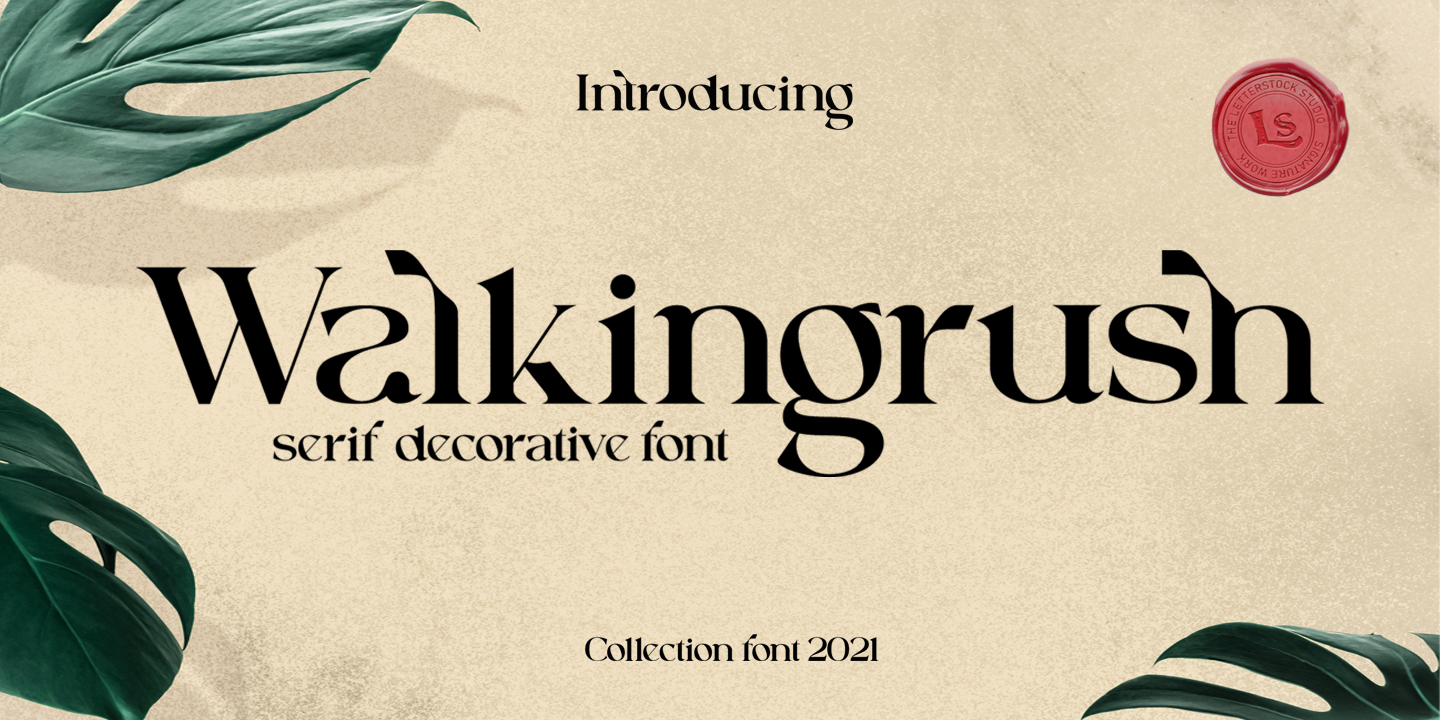
Walkingrush Font is ideal for adventure sports branding, outdoor gear packaging, extreme sports logos, travel blog headers, hiking trail signage, camping equipment labels, fitness brand identity, action movie titles, adventure game interfaces, and dynamic marketing campaigns.
What makes Walkingrush Font exciting is its energetic and bold character that perfectly captures the spirit of movement and adventure. This dynamic typeface features strong, confident strokes that convey speed, power, and determination. The font's unique design elements create a sense of urgency and excitement, making it perfect for brands that want to inspire action and adventure in their audience.
The Walkingrush Font family includes various weights and styles: Regular, Bold, Condensed, Extended, Italic, and Outline versions. Each variant maintains the core energetic essence while providing different levels of impact and versatility. The complete family offers designers multiple options for creating compelling visual narratives across different media.
When you need a typeface that embodies motion and excitement, Walkingrush Font Free Download is your perfect solution. This powerful font transforms static text into dynamic visual elements that grab attention and motivate action. Its versatile nature makes it suitable for both digital and print applications, from website headers to billboard advertisements. Download Walkingrush Font today and inject energy into your design projects with this remarkable typeface that perfectly balances readability with adventurous spirit and contemporary design trends.